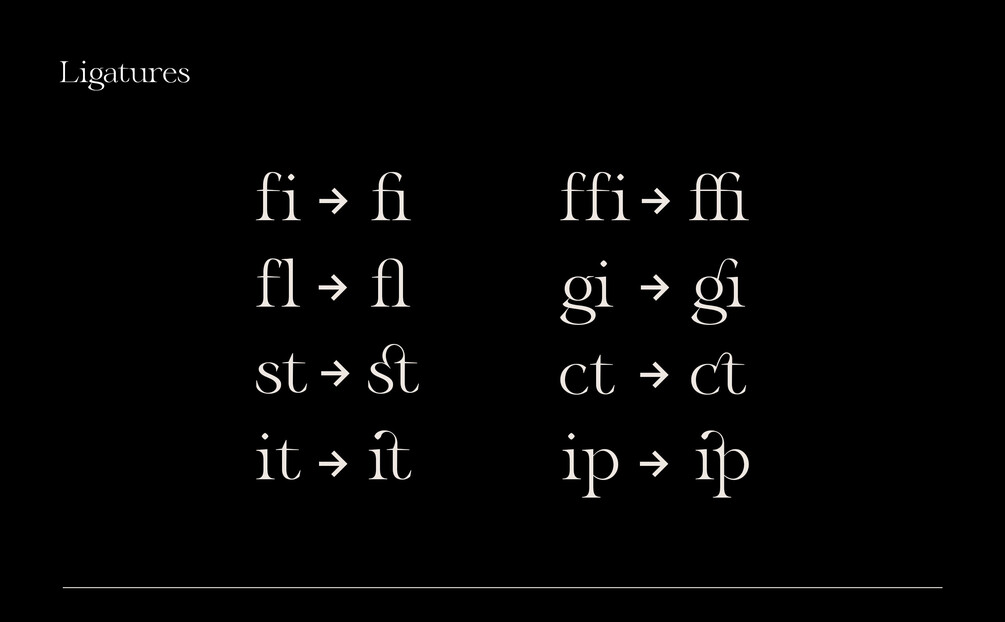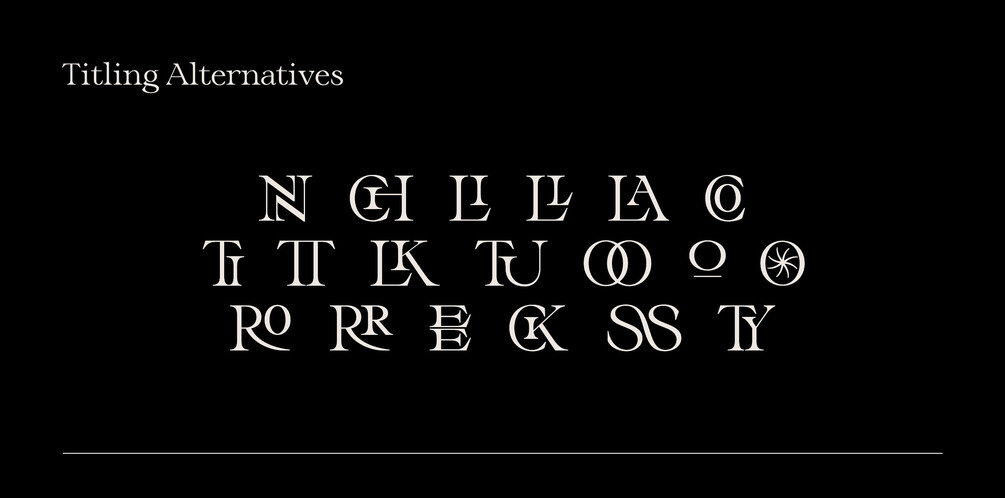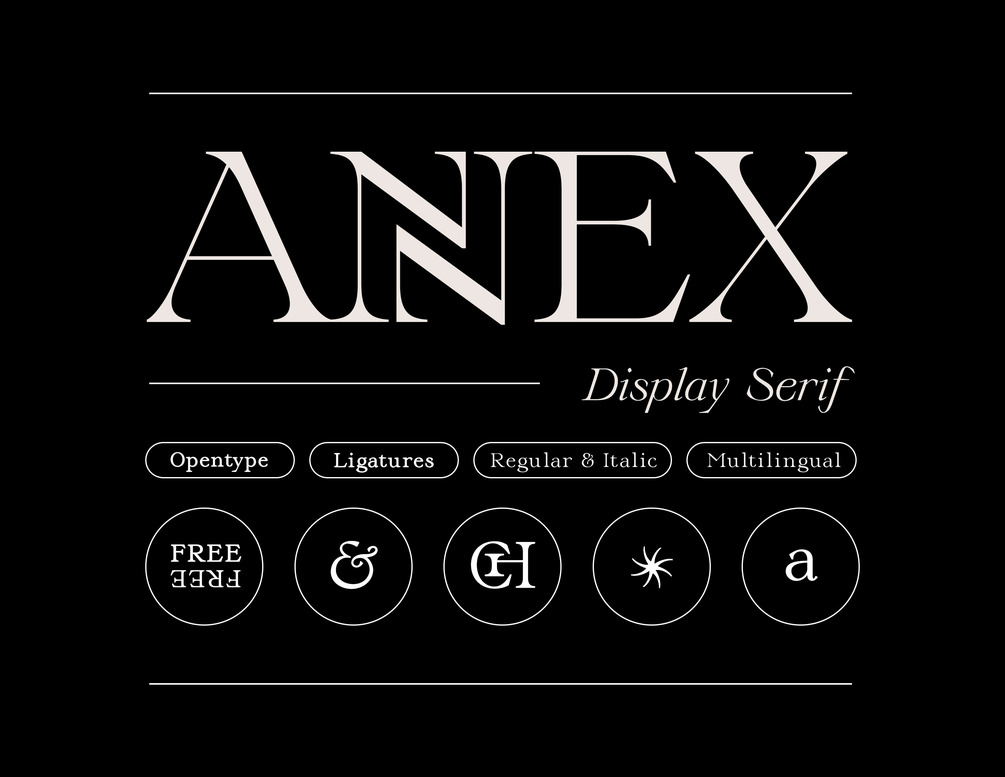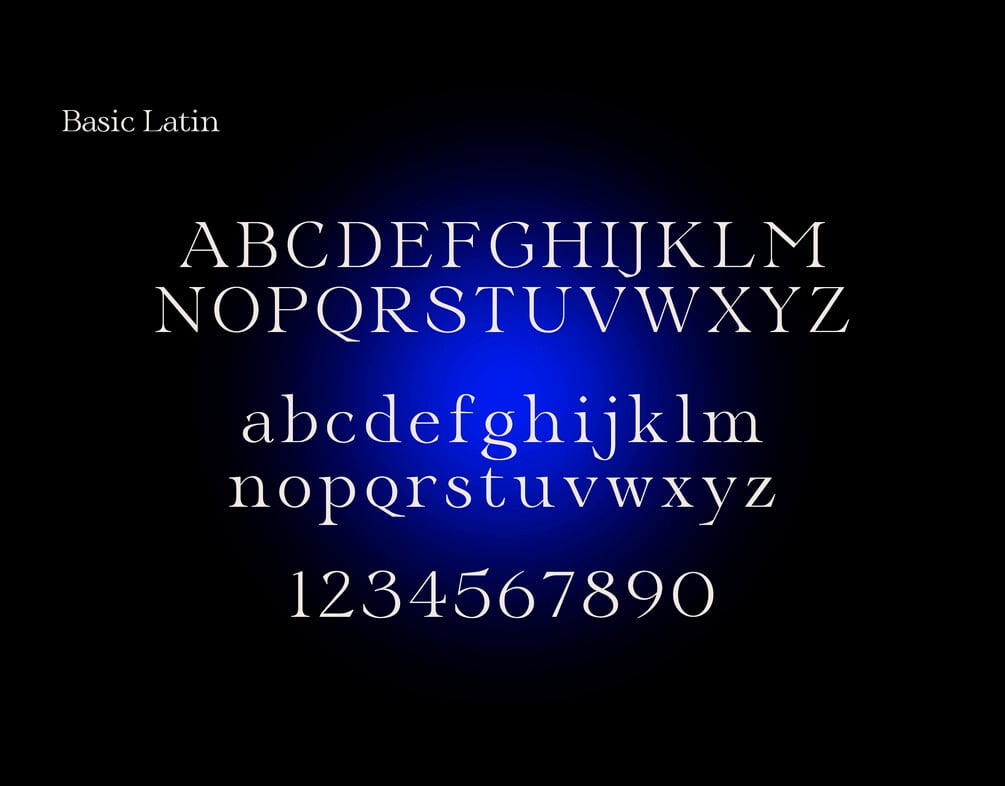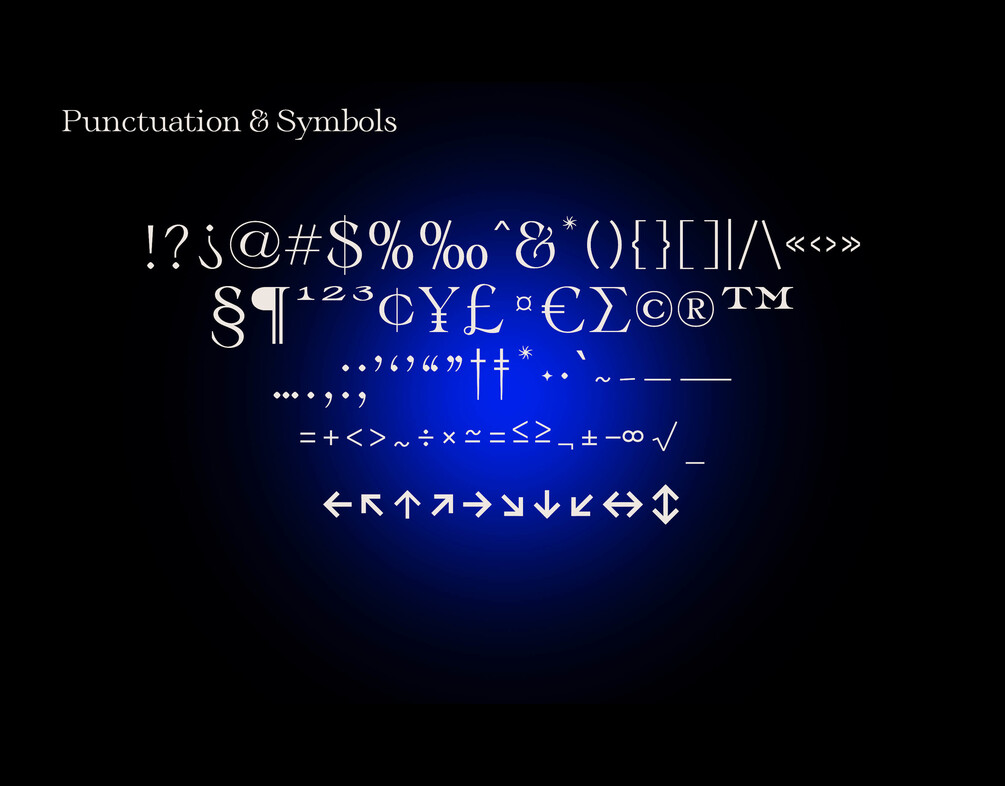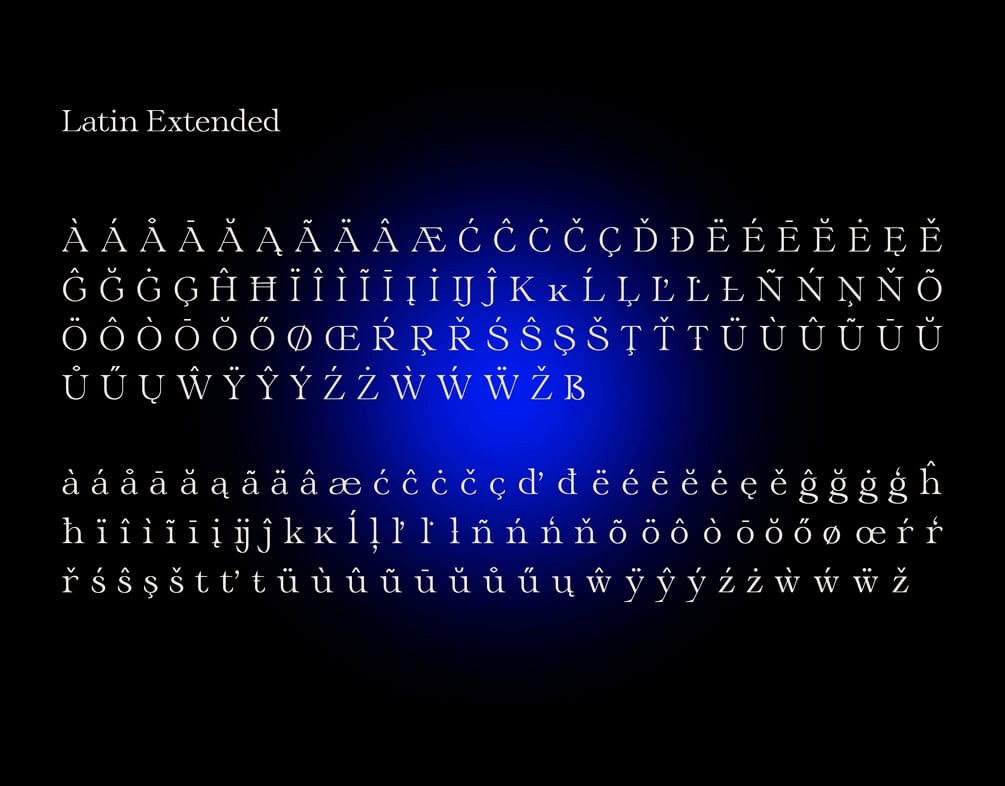
Annex — Serif Display Font
Regular & Italic
Annex is a display typeface with sharp serifs that contains two styles: Regular & Italic.
It comes with many standard ligatures as well as titling alternatives. The font contains over 400 glyphs and supports all languages using the Latin-based alphabet.
Annex is named after a Toronto neighbourhood. It is a typeface that is elegant, contemporary, and inspired by the city.